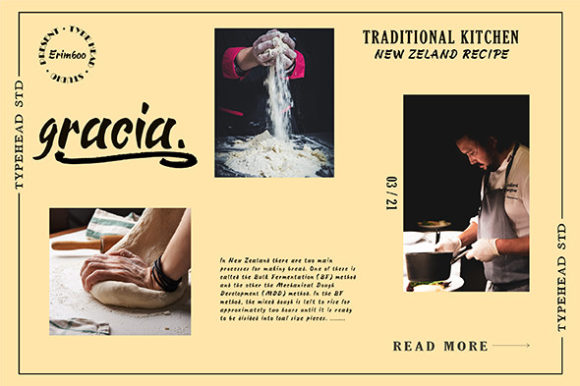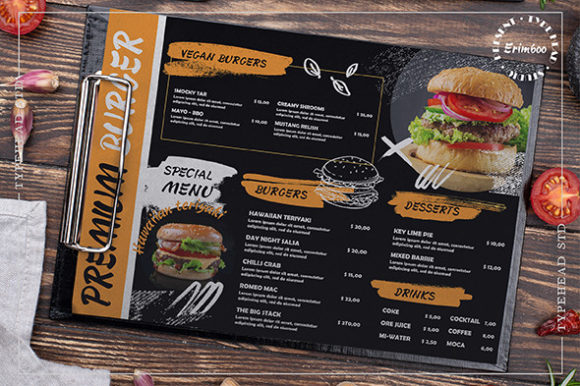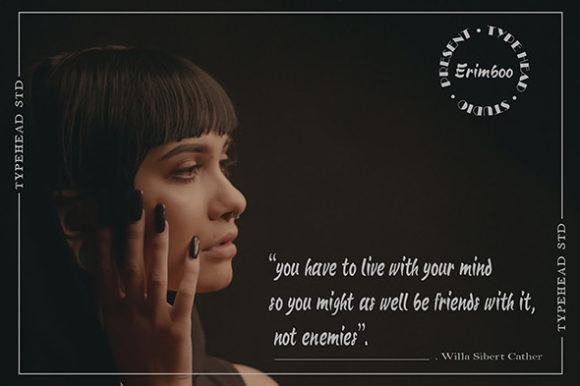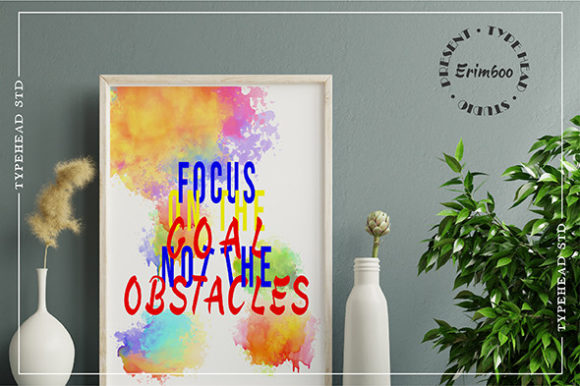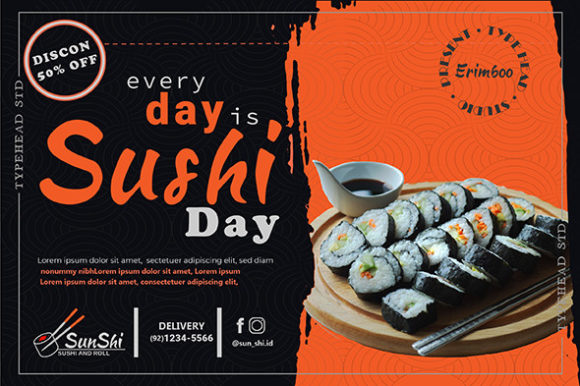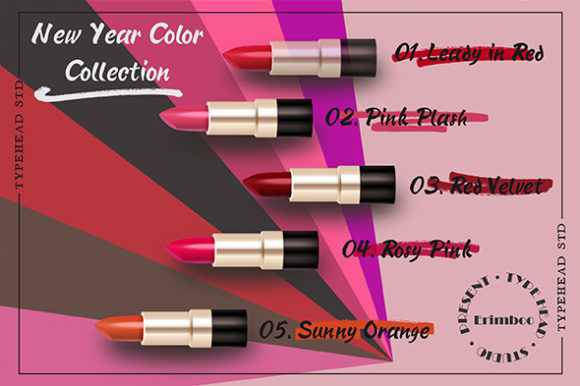
Erimboo Font: Elevate Your Designs with a Stylish and Bold Handwritten Touch
In the world of typography, fonts play a crucial role in conveying the tone and personality of a design. For designers and crafters looking to add a touch of elegance and sophistication to their projects, Erimboo Font is an excellent choice. This gorgeous and bold handwritten font is crafted to give your headlines and logotype projects a stylish touch, making it perfect for those who want to make a statement.
The Power of Erimboo Font
Erimboo Font reads as strong, confident, and dynamic, making it an ideal choice for designers who want to create a lasting impression. Its bold and handwritten style adds a touch of nostalgia to your designs, evoking a sense of classic charm and character. Whether you’re working on a logo, headline, or any other design project, Erimboo Font is sure to elevate your work to the next level.
Key Features of Erimboo Font
- Bold and Handwritten Style: Erimboo Font boasts a bold and handwritten style that adds a touch of elegance and sophistication to your designs.
- Strong and Confident: This font reads as strong, confident, and dynamic, making it perfect for designers who want to create a lasting impression.
- Nostalgic Character: Erimboo Font adds a touch of nostalgia to your designs, evoking a sense of classic charm and character.
- Perfect for Headlines and Logotype Projects: This font is specifically designed for headlines and logotype projects, making it an excellent choice for designers who want to create eye-catching and memorable designs.
Why Choose Erimboo Font?
With so many fonts available, why choose Erimboo Font? Here are just a few reasons why designers and crafters love this font:
- Unique and Eye-Catching: Erimboo Font is a unique and eye-catching font that will set your designs apart from the rest.
- Versatile: This font can be used for a wide range of design projects, from logos and headlines to posters and packaging.
- Easy to Read: Despite its bold style, Erimboo Font is easy to read, making it perfect for designs where clarity is essential.
- High-Quality: This font is crafted with high-quality and attention to detail, ensuring that your designs look professional and polished.
Tips for Using Erimboo Font
To get the most out of Erimboo Font, here are a few tips to keep in mind:
- Use it for Headlines and Titles: Erimboo Font is perfect for headlines and titles, where its bold style can make a lasting impression.
- Experiment with Colors and Textures: Don’t be afraid to experiment with different colors and textures to add depth and interest to your designs.
- Pair it with Other Fonts: Erimboo Font can be paired with other fonts to create a unique and eye-catching design.
Erimboo Font is a gorgeous and bold handwritten font that is perfect for designers and crafters looking to add a touch of elegance and sophistication to their projects. With its strong, confident, and dynamic style, this font is sure to elevate your designs to the next level. Whether you’re working on a logo, headline, or any other design project, Erimboo Font is an excellent choice. So why wait? Download Erimboo Font today and start creating stunning designs that will leave a lasting impression!